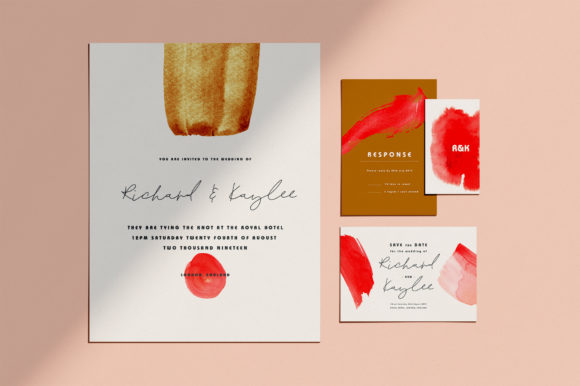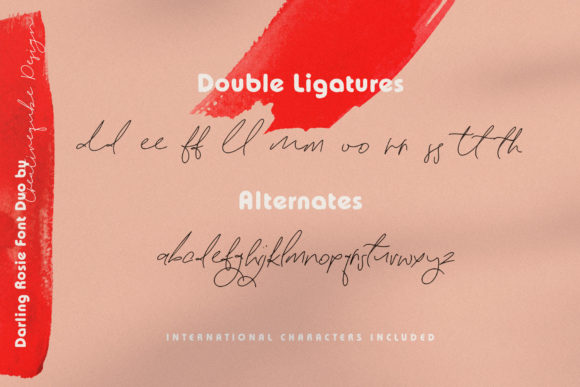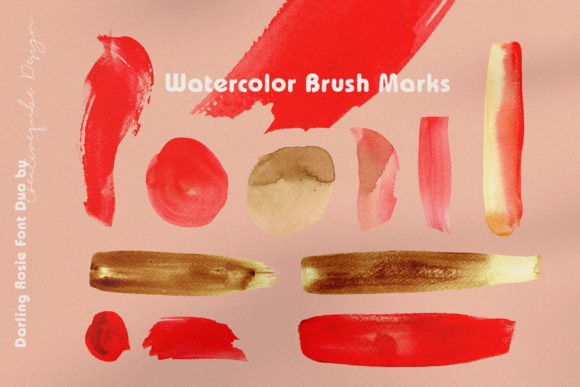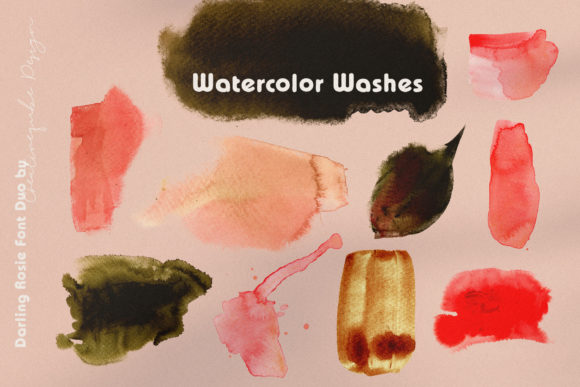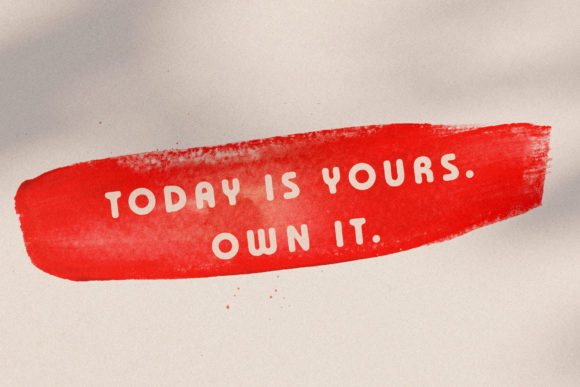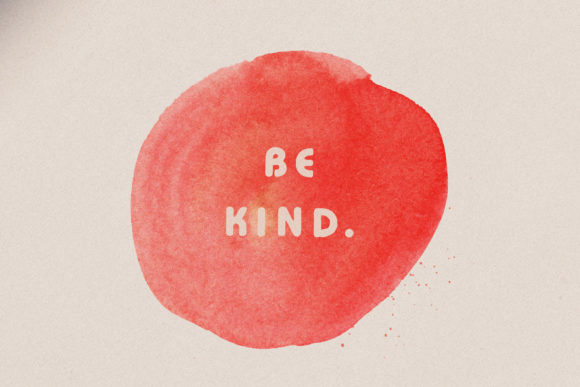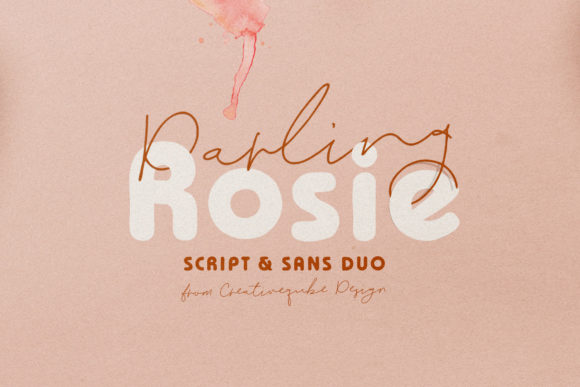
Introducing Darling Rosie Font: The Ultimate Choice for Elegant Designs
Are you a designer or crafter looking for a font that exudes elegance and sophistication? Look no further than Darling Rosie Font! This stunning script font is perfect for creating beautiful wedding invitations, stationary art, social media posts, and more. In this article, we’ll dive into the features and benefits of Darling Rosie Font, and explore how you can use it to elevate your designs.
What is Darling Rosie Font?
Darling Rosie Font is a gorgeous, slim script font that is sure to capture your heart. Its ravishing style is perfect for designers and crafters who want to add a touch of elegance to their work. With its flowing lines and delicate curves, Darling Rosie Font is ideal for creating beautiful and eye-catching designs.
Key Features of Darling Rosie Font
• Beautiful Script Style: Darling Rosie Font features a stunning script style that is perfect for creating elegant and sophisticated designs.
• Slim and Elegant: The font’s slim and elegant design makes it perfect for use in wedding invitations, stationary art, and other designs where a touch of elegance is desired.
• Highly Versatile: Darling Rosie Font can be used for a wide range of design projects, from social media posts to business cards and more.
• Easy to Read: Despite its elegant and cursive style, Darling Rosie Font is easy to read, making it perfect for use in body text and other applications where readability is important.
Uses for Darling Rosie Font
Darling Rosie Font is a highly versatile font that can be used for a wide range of design projects. Here are some ideas to get you started:
• Wedding Invitations: Create beautiful and elegant wedding invitations that set the tone for the big day.
• Stationary Art: Use Darling Rosie Font to create stunning stationary art, including greeting cards, thank you cards, and more.
• Social Media Posts: Add a touch of elegance to your social media posts with Darling Rosie Font.
• Business Cards: Use Darling Rosie Font to create elegant and sophisticated business cards that make a lasting impression.
• Branding and Packaging: Use Darling Rosie Font to create a cohesive brand identity that exudes elegance and sophistication.
Tips for Using Darling Rosie Font
Here are some tips for getting the most out of Darling Rosie Font:
• Pair with Other Fonts: Darling Rosie Font pairs well with other fonts, including serif and sans serif fonts. Experiment with different pairings to find the perfect combination for your design.
• Use in Headlines and Titles: Darling Rosie Font is perfect for use in headlines and titles, where its elegant and cursive style can really shine.
• Experiment with Colors: Darling Rosie Font looks great in a variety of colors, from classic black and white to bold and bright colors. Experiment with different colors to find the perfect look for your design.
Darling Rosie Font is a stunning script font that is perfect for designers and crafters who want to add a touch of elegance to their work. With its beautiful script style, slim and elegant design, and high versatility, Darling Rosie Font is the ultimate choice for elegant designs. Whether you’re creating wedding invitations, stationary art, social media posts, or more, Darling Rosie Font is sure to impress. So why wait? Download Darling Rosie Font today and start creating your own stunning designs!